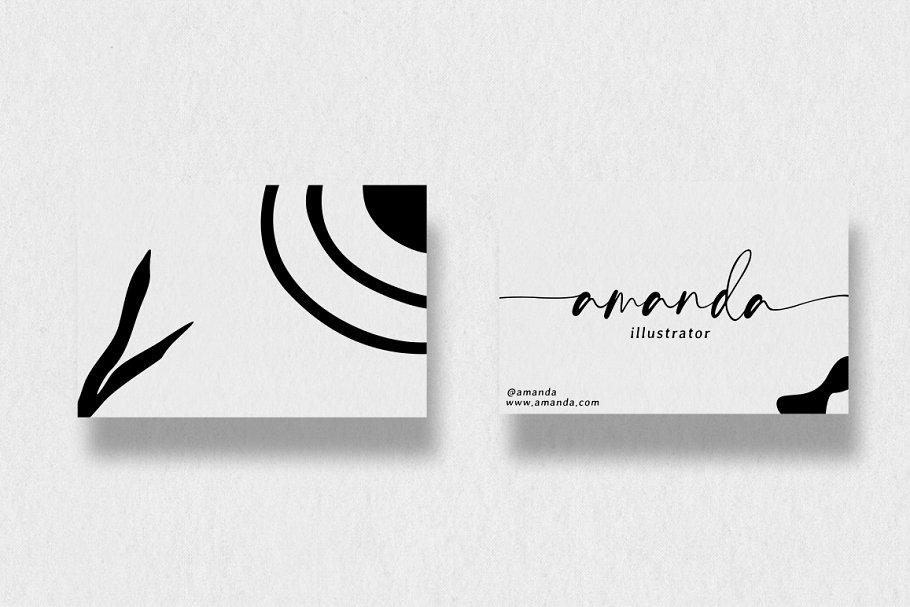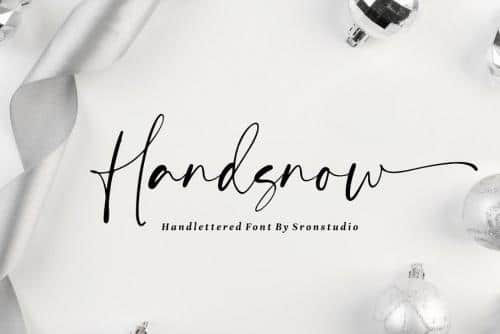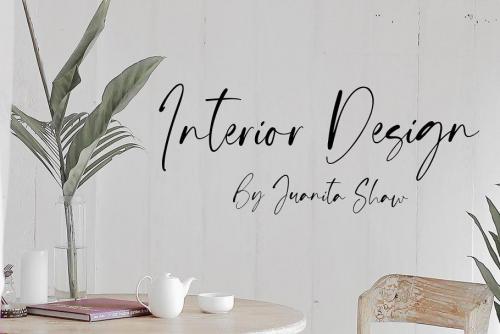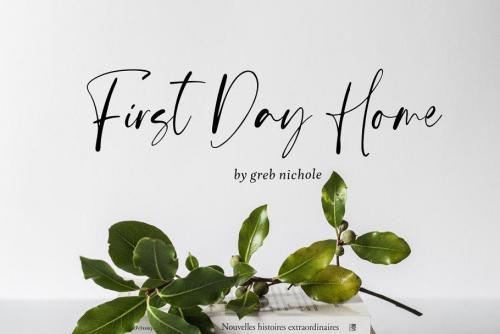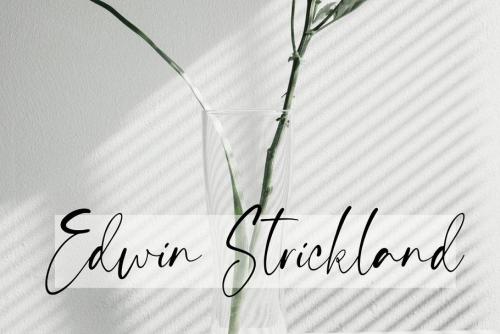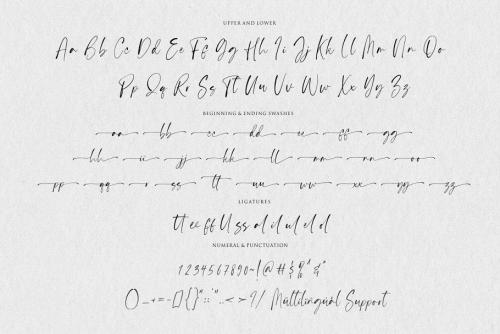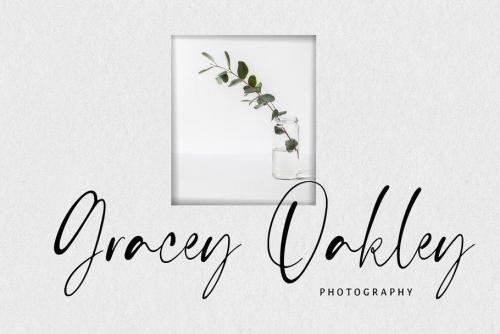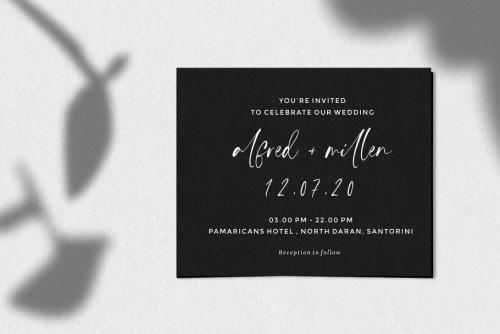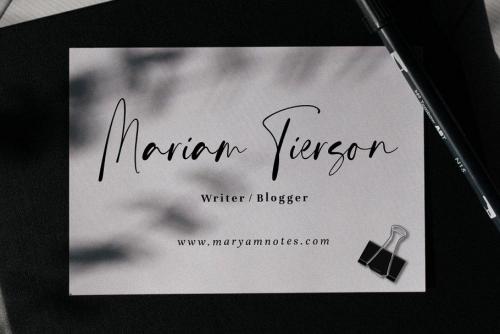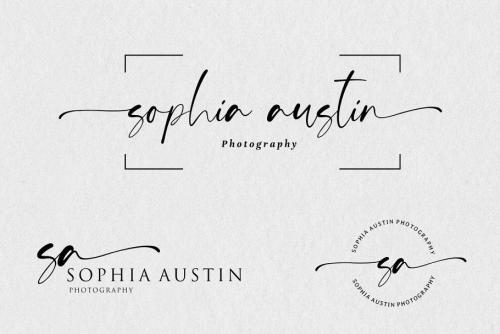
Handsnow is a beautiful calligraphy font perfect for branding, invitation, stationery, wedding designs, social media posts, advertisements, product packaging, product designs, label, photography, watermark, special events or anything.
Handsnow comes with full set of uppercase and lowercase letters, swash alternates, ligatures,multilingual symbols, numerals and punctuation.
- Designer: Sronstudio